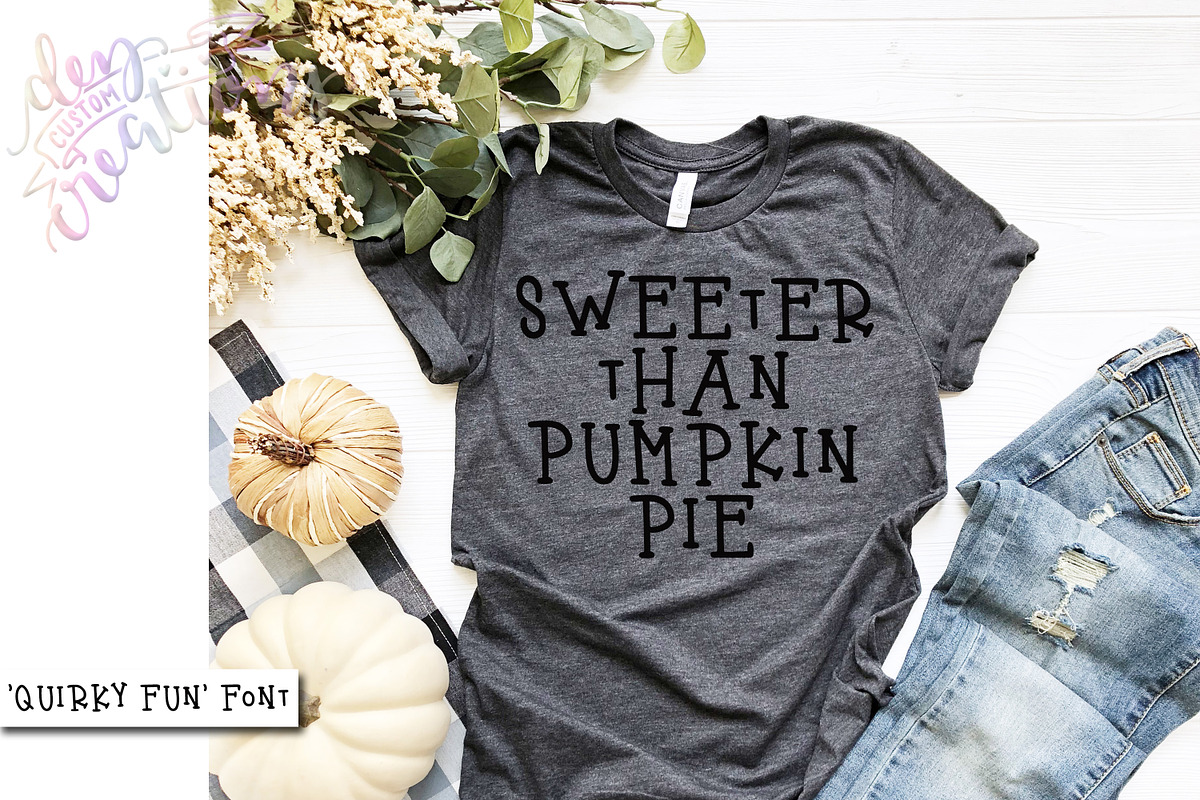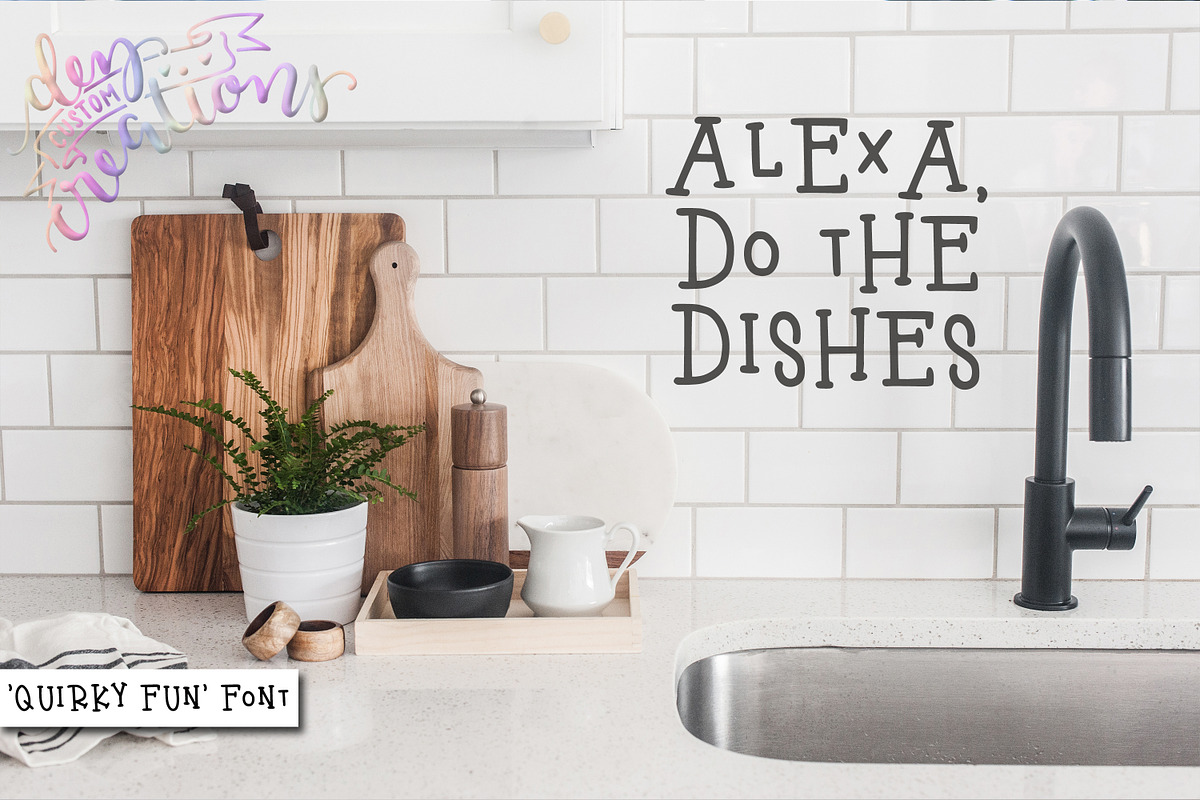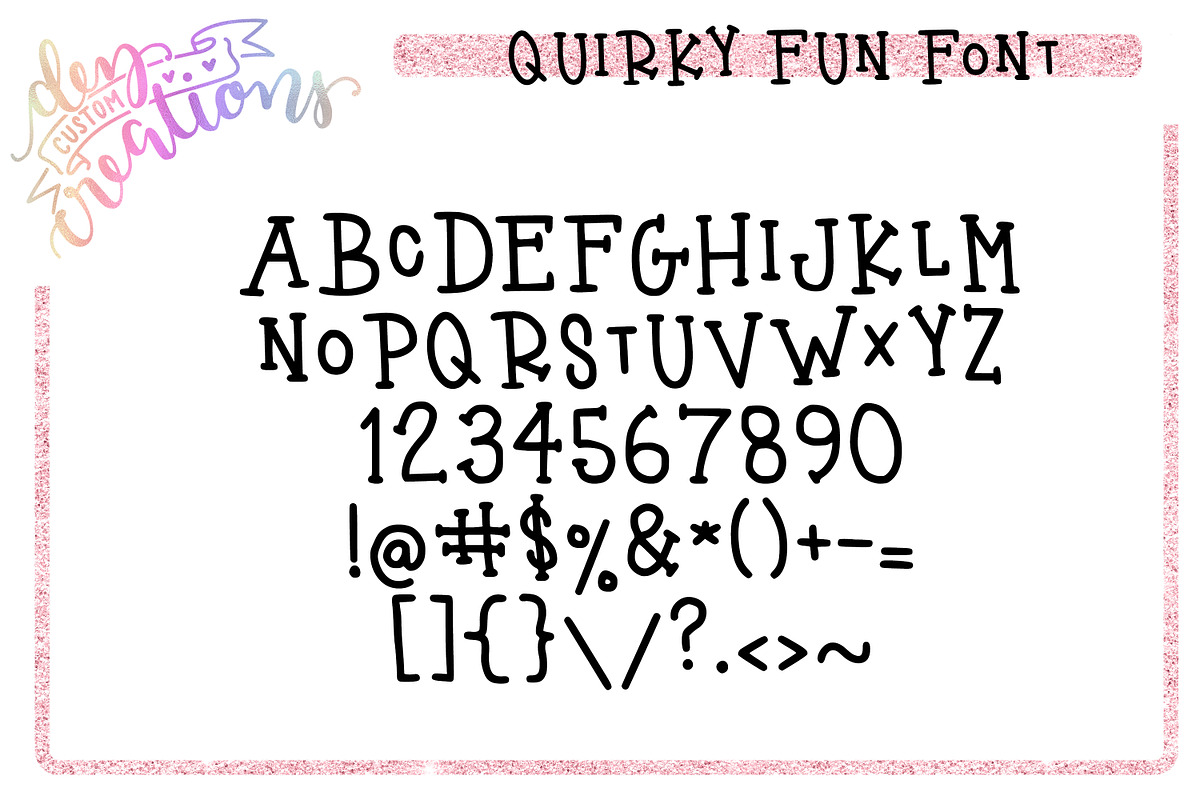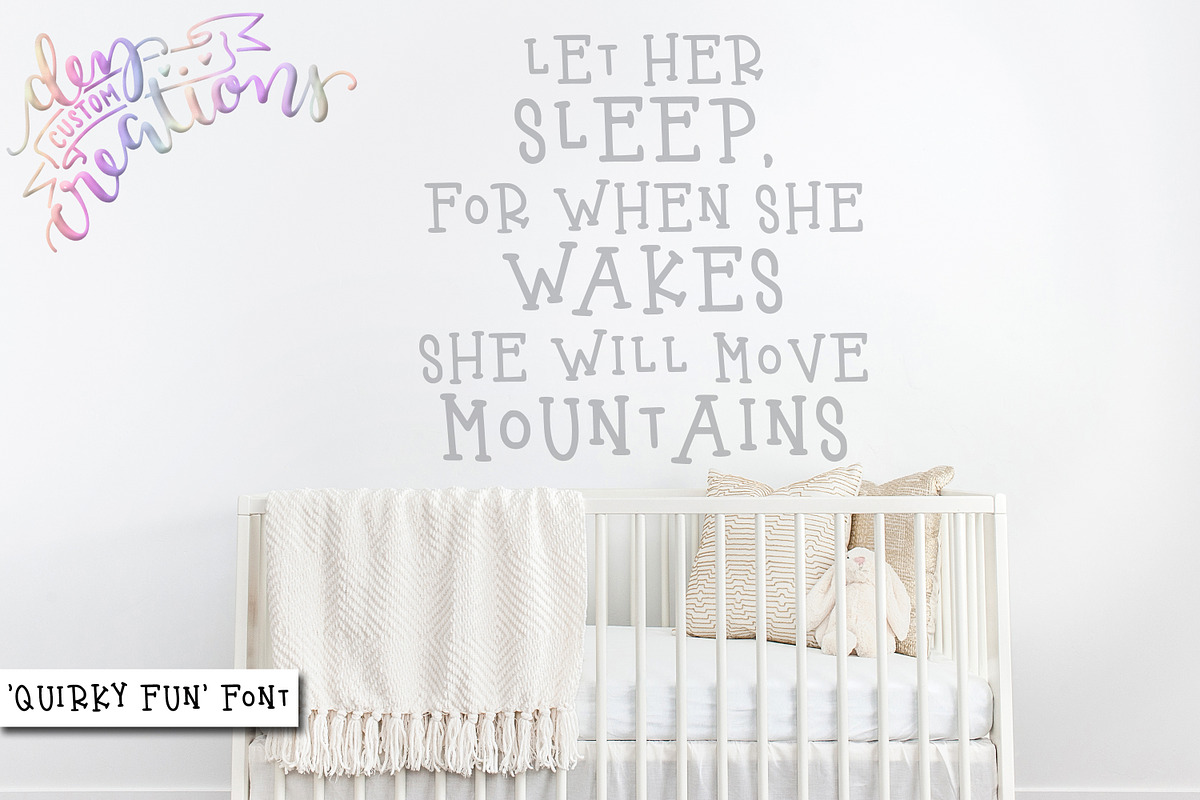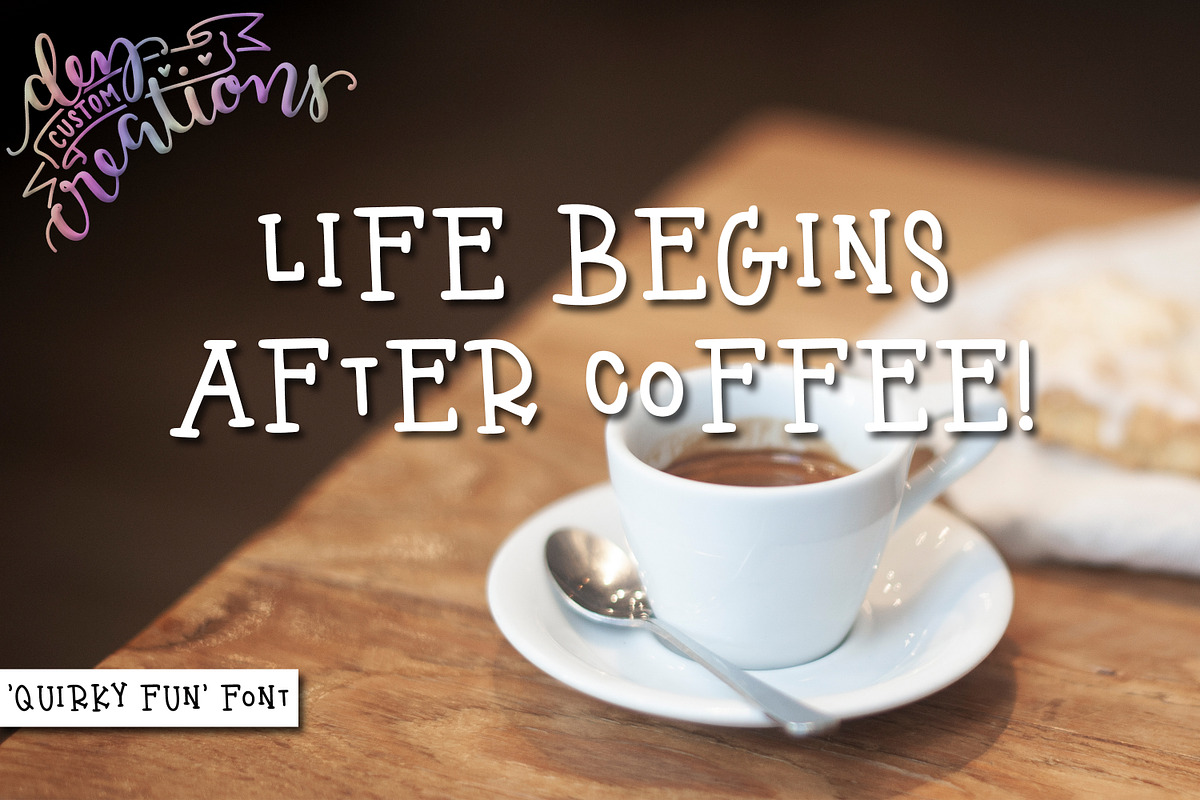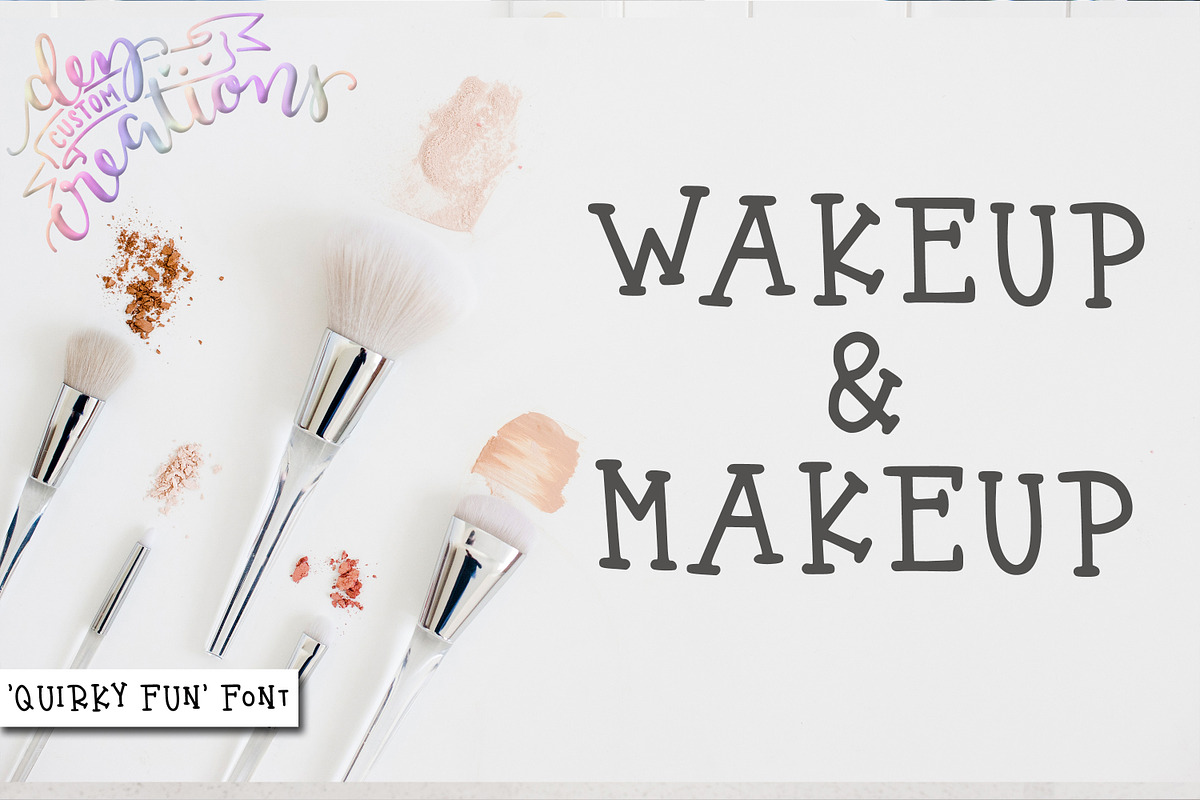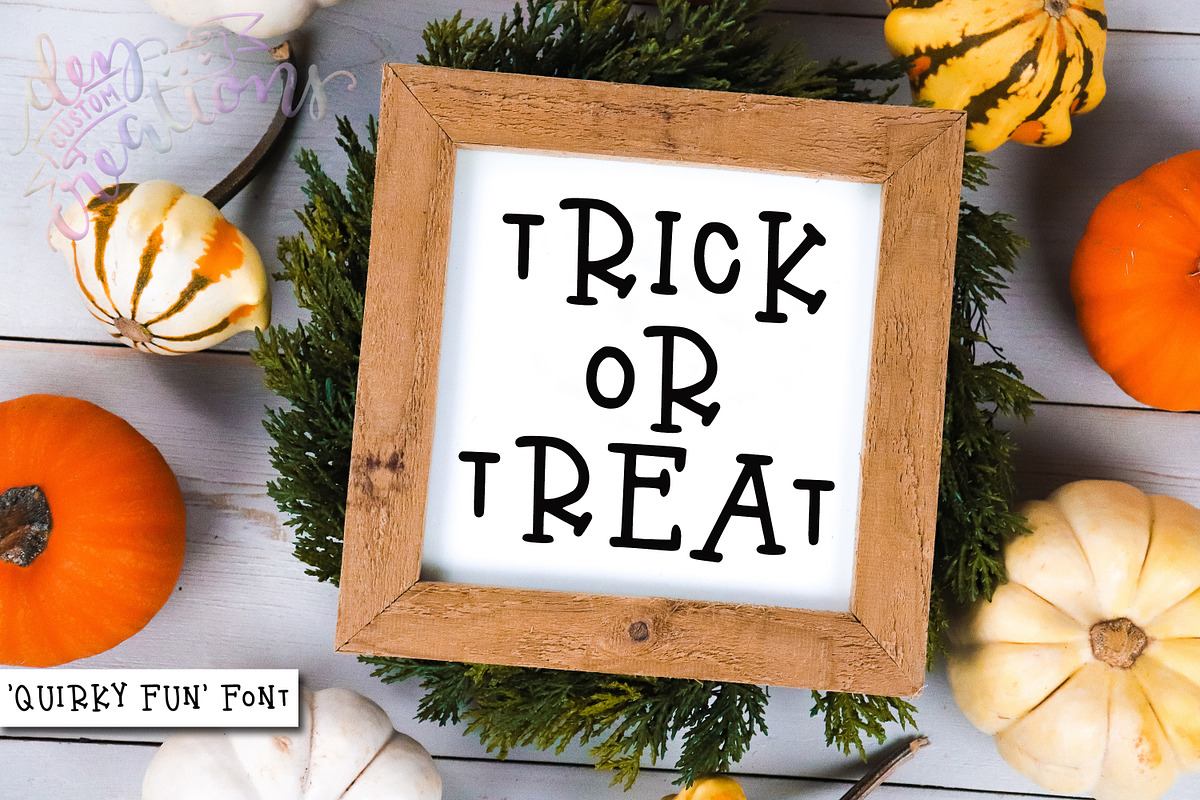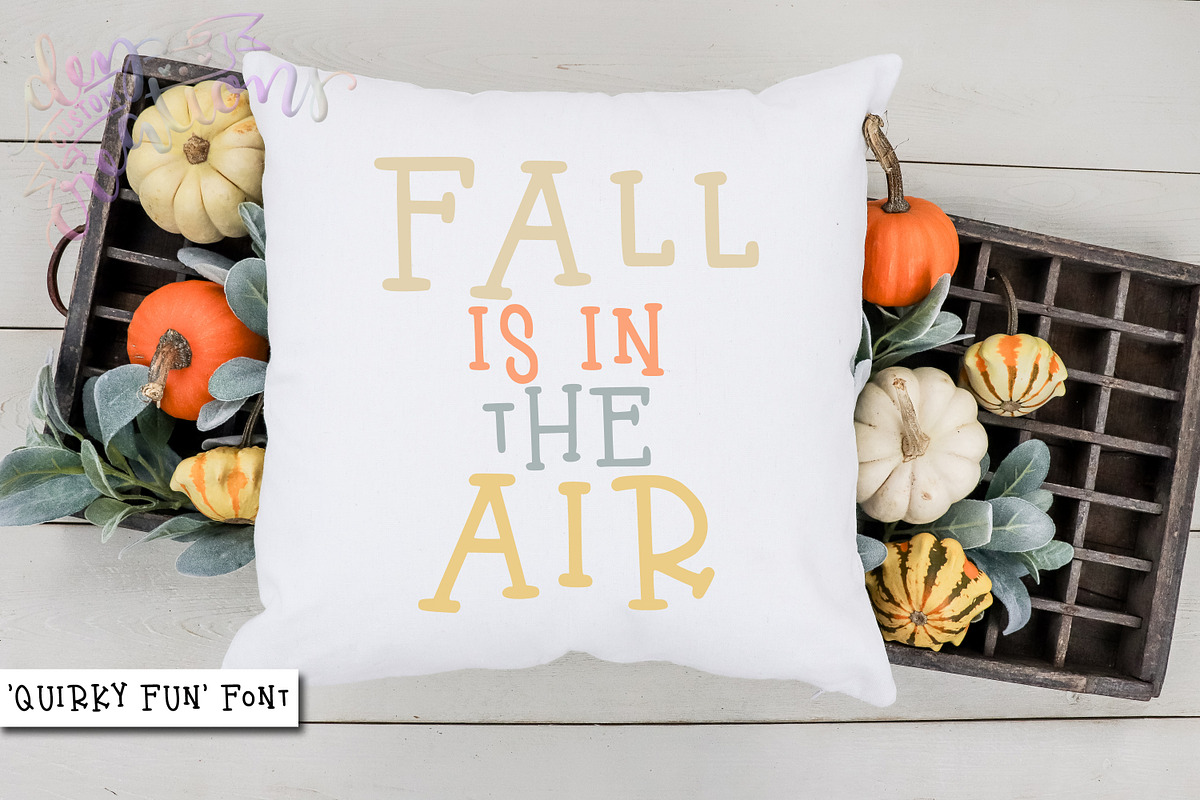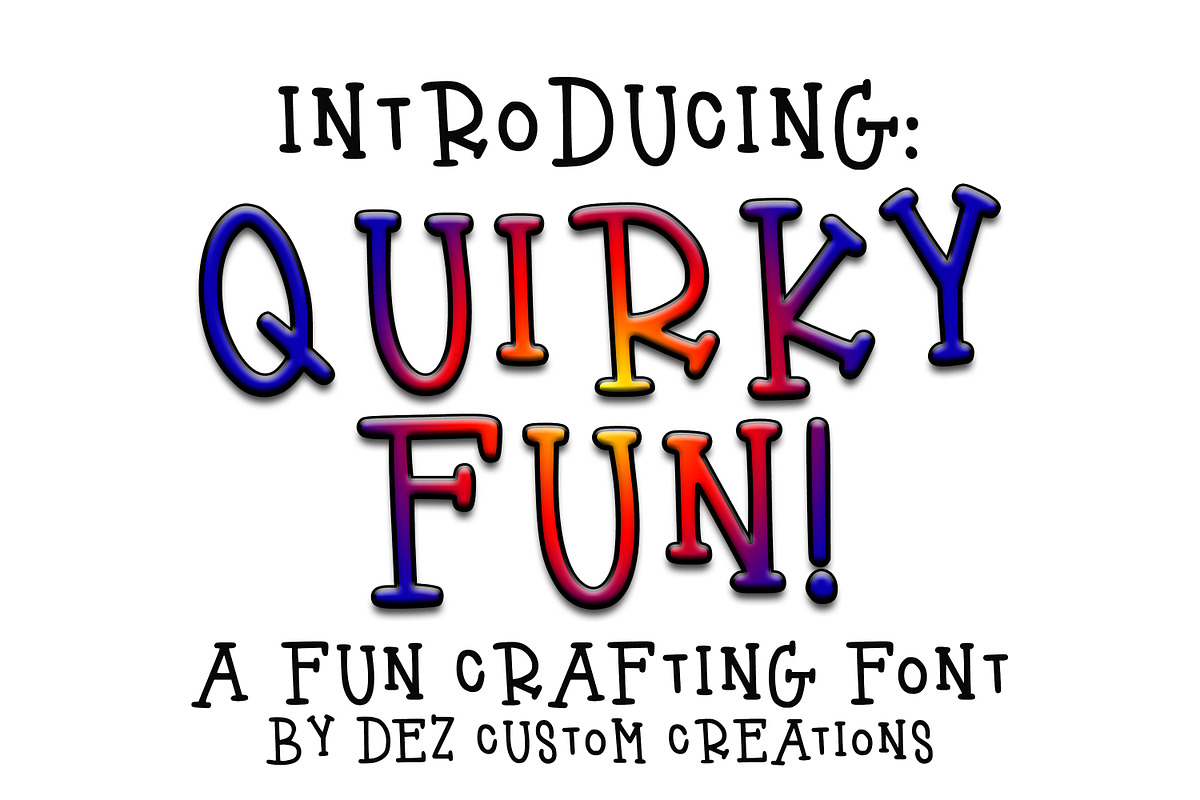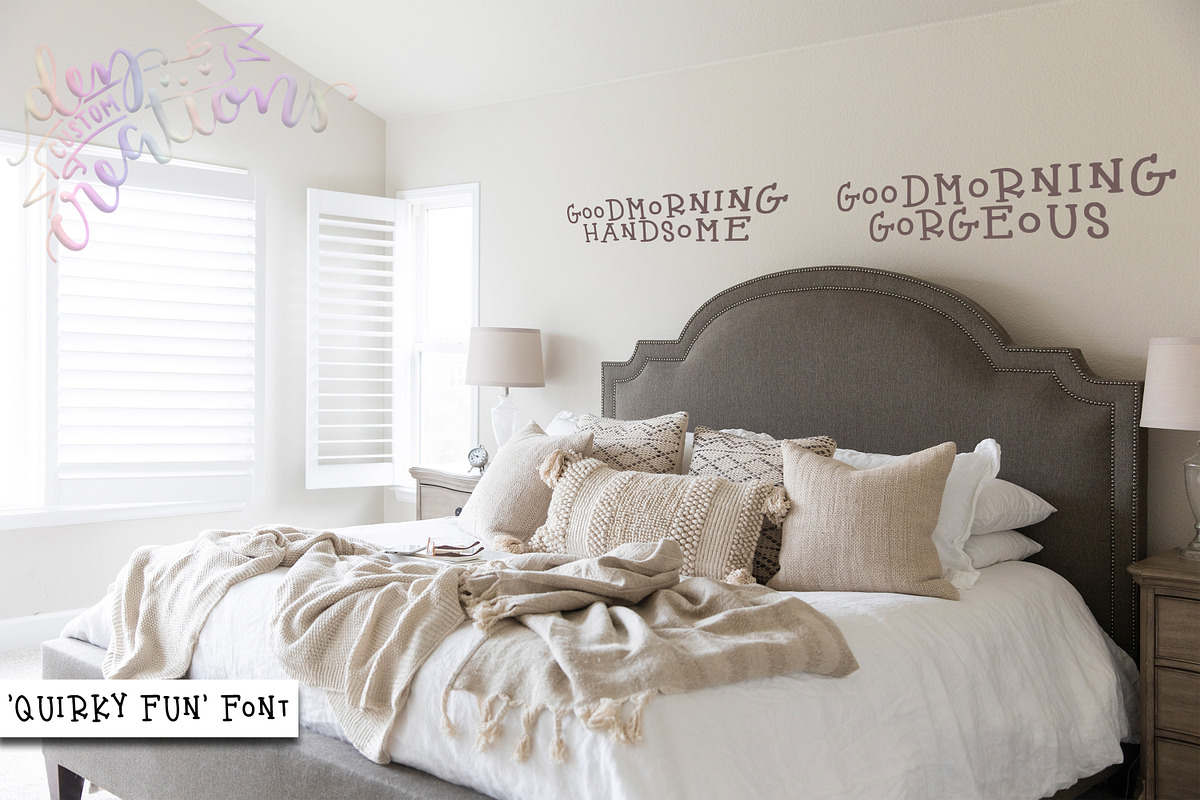
Quirky Fun - A Fun Hand LetteredFont
Here I have 'Quirky Fun', a fun, weird, off-kilter, serif hand-lettered font. This font was designed with sassy fun crafting designs in mind! Purchase today to get those creative juices flowing to design something awesome and viral!
This listing comes with Quirky Fun, which has Uppercase/Lowercase (both are the same), Numbers & Punctuation. This font is perfect for crafting and looks awesome on T-shirts, mugs, cards, invitations and so much more!